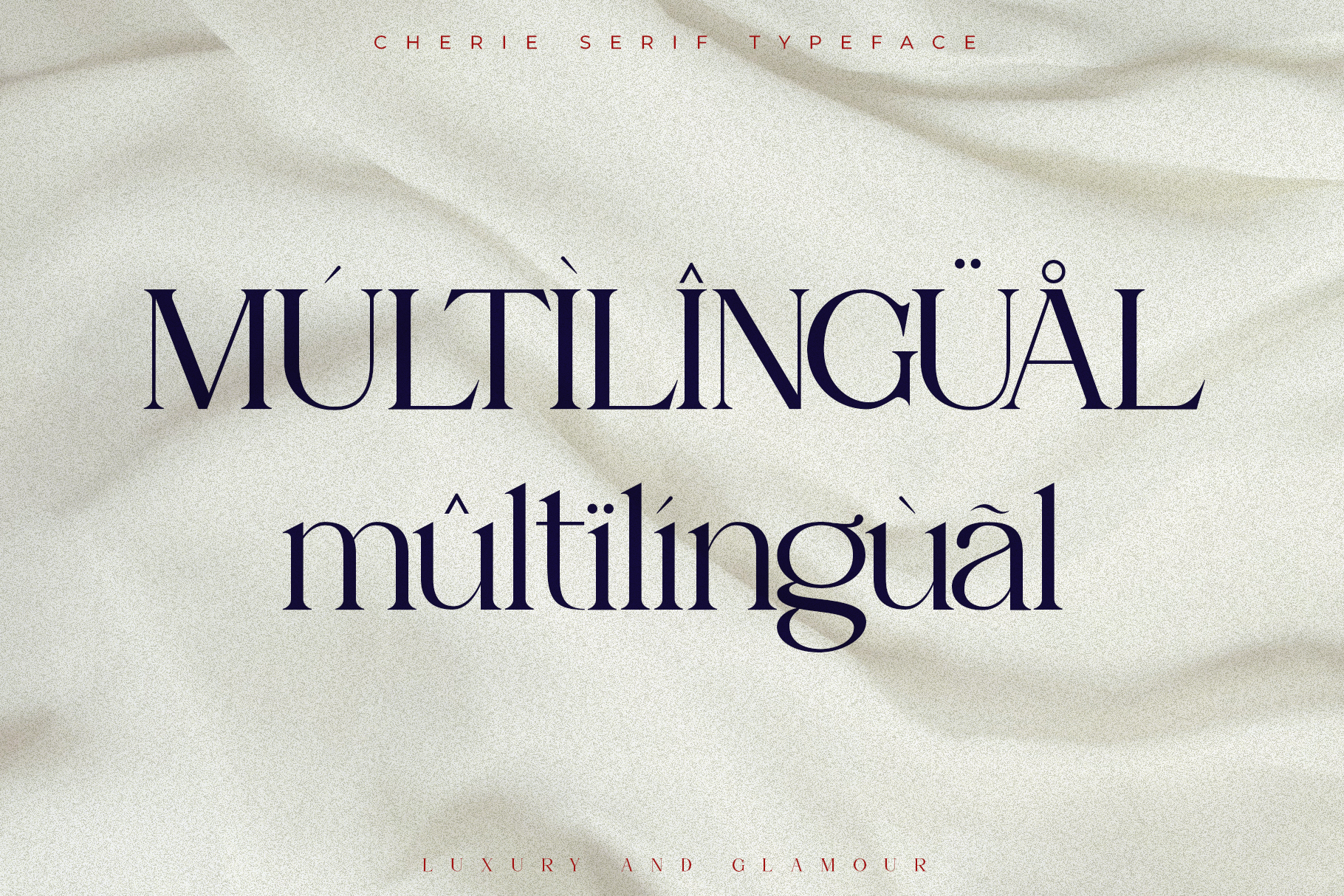
Cherie Font
Cherie Serif Font Is A Classic Serif Fonts Inspired By Modern and Ligature Characters. Great in layout design for quotes or body copy, best used as a display for headings, logos, branding, magazines, product packaging, invitations, and more.